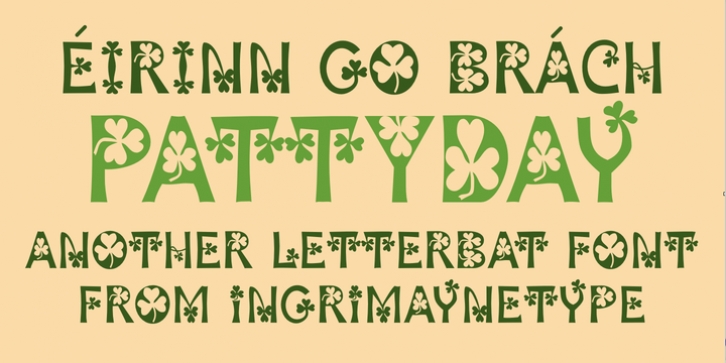
Patty Day was designed by Robert Schenk and published by Ingrimayne Type. Patty Day contains 1 style.
March may be a good time to use this typeface.
If you want a version of this face without the shamrocks, try Ingone.